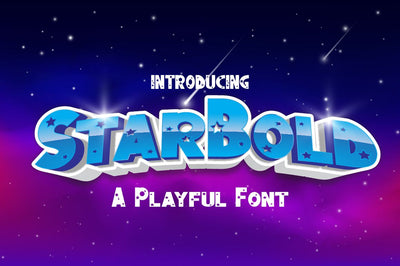
Star Bold a Playful font
Star Bold is a very unique playful display font. This font is made with the theme of a shining star depicting the joy of children! This font is very compatible. This font can also be used as T-shirts, games, comics, cartoons, book covers, stickers, silhouettes, cricuts and many more!